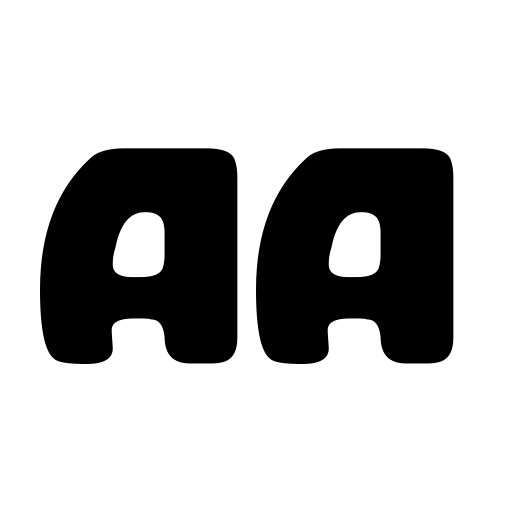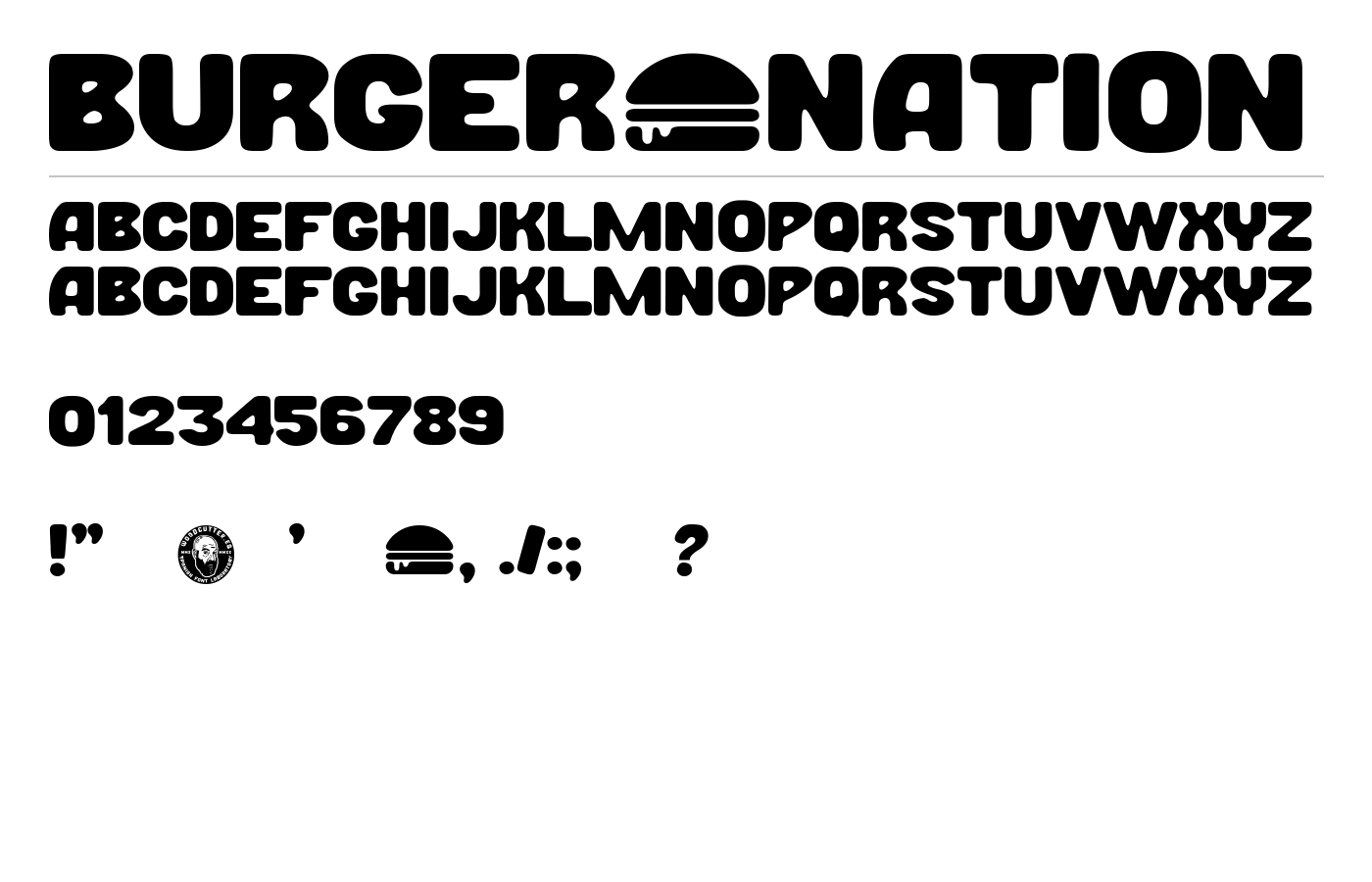
Burger+Nation is a bold, playful sans serif font with rounded edges and a chunky, friendly appearance. Its thick strokes and high x-height make it highly legible and attention-grabbing, perfect for casual or fun branding, especially in food-related or youth-oriented designs. This font excels in logos, headlines, and packaging where a strong, approachable vibe is desired.
Burger+Nation Font
About Burger+Nation Font